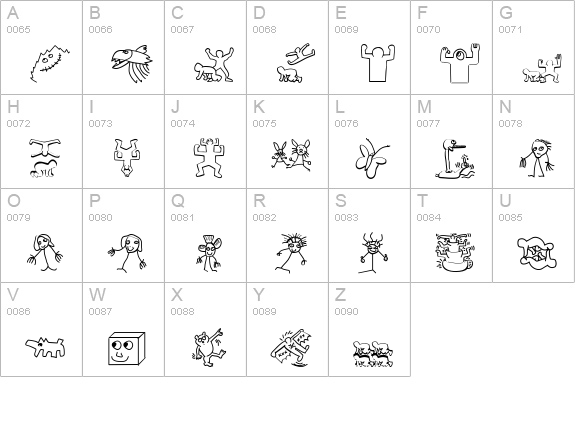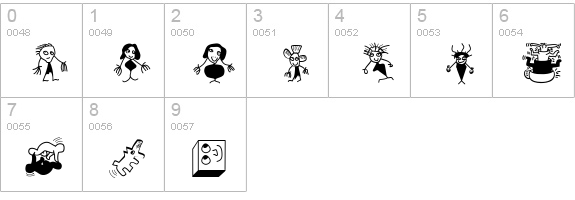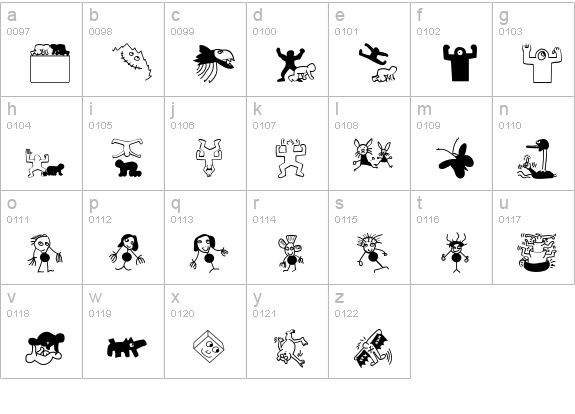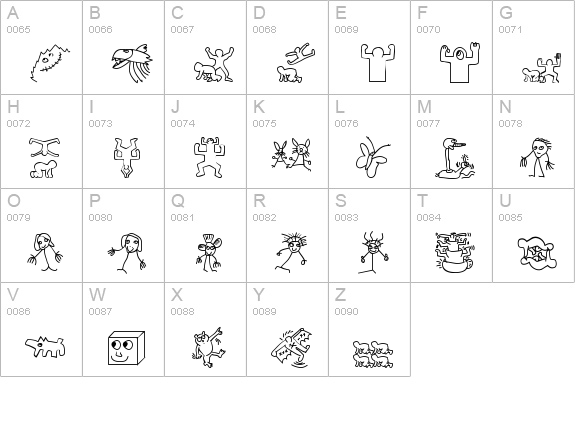
Bitsbats Font Details
Introducing Bitsbats font, a whimsical and playful typeface perfect for adding a touch of fun to your design projects. With its unique characters and charming style, Bitsbats font is sure to make a statement and capture attention. Designed with creativity in mind, Bitsbats font offers a wide range of symbols and icons that can be used to enhance any design, from posters to social media graphics. The versatility of this font allows you to create eye-catching and engaging visuals that stand out from the crowd. The best part? Bitsbats font is completely free to download at FontsMarket.com. Now you can unleash your creativity without breaking the bank. So why wait? Download Bitsbats font today and start adding a touch of whimsy to your designs!